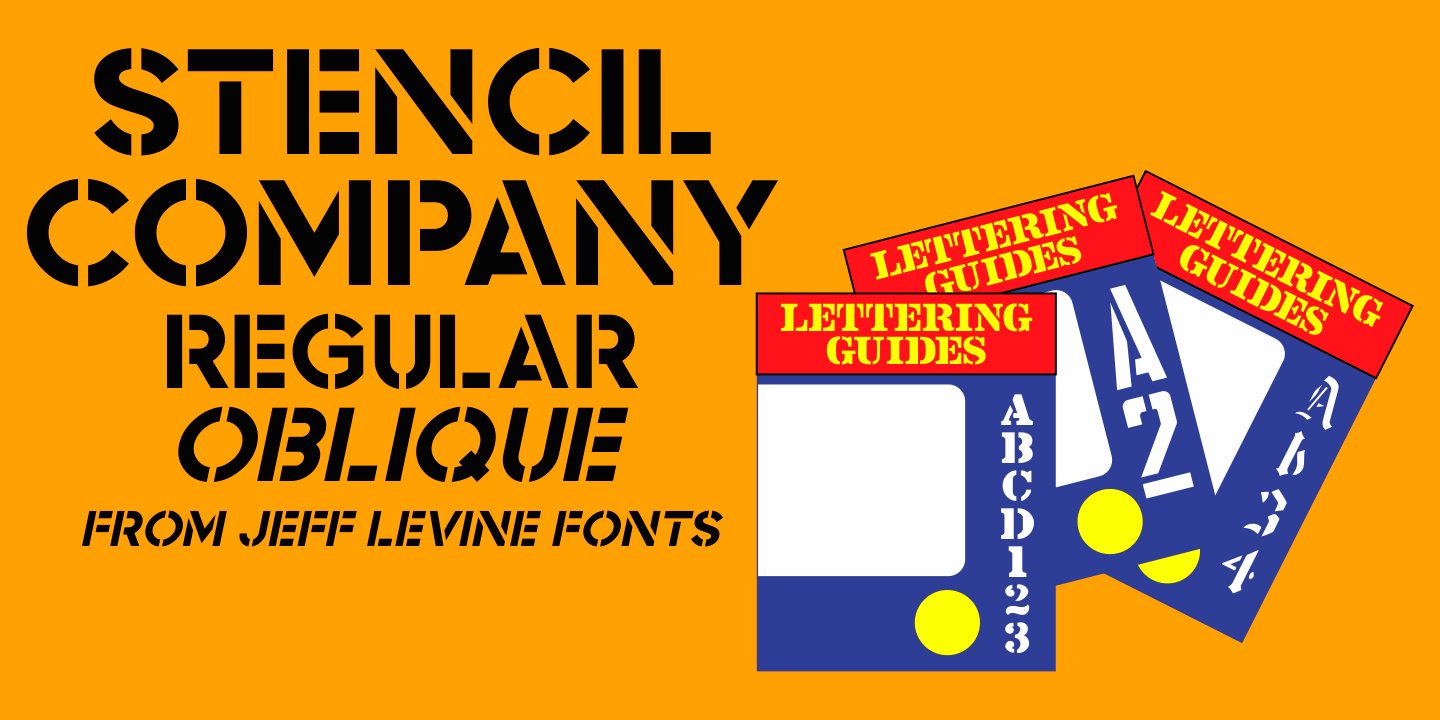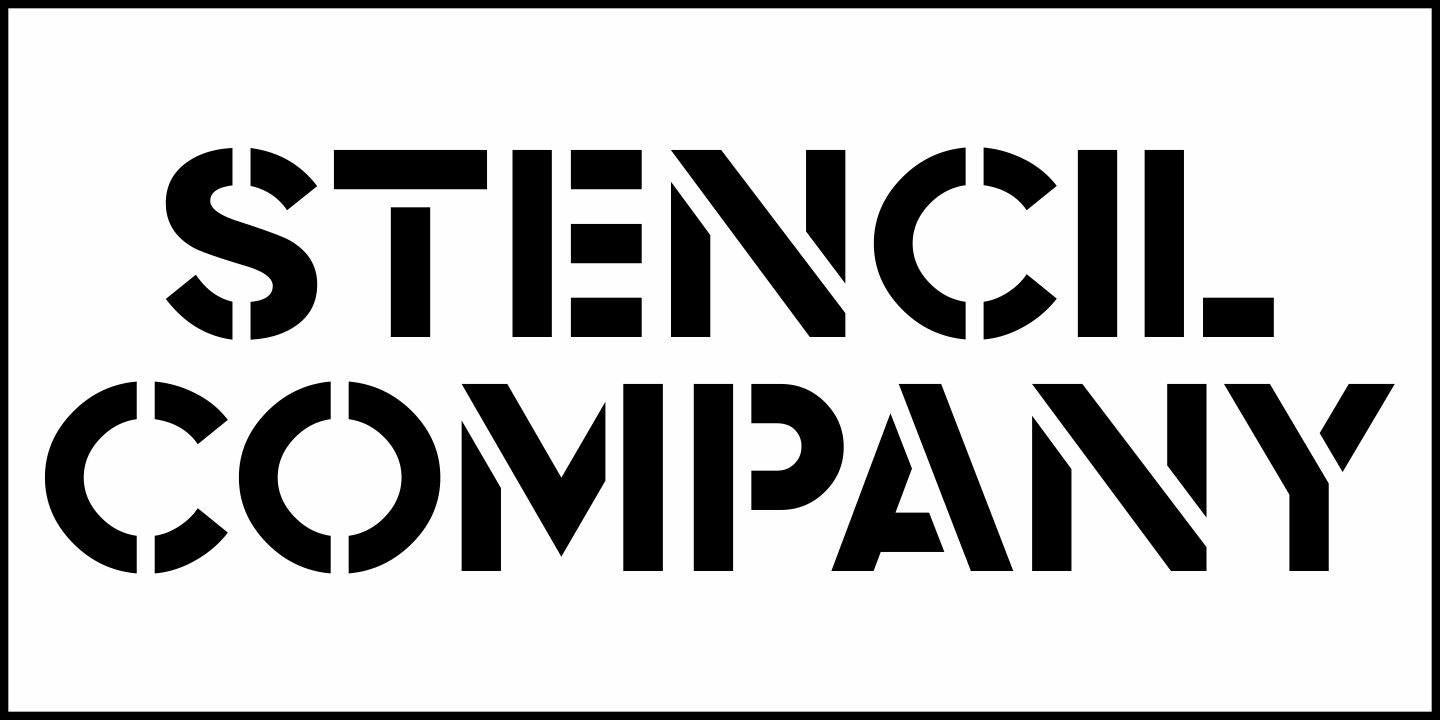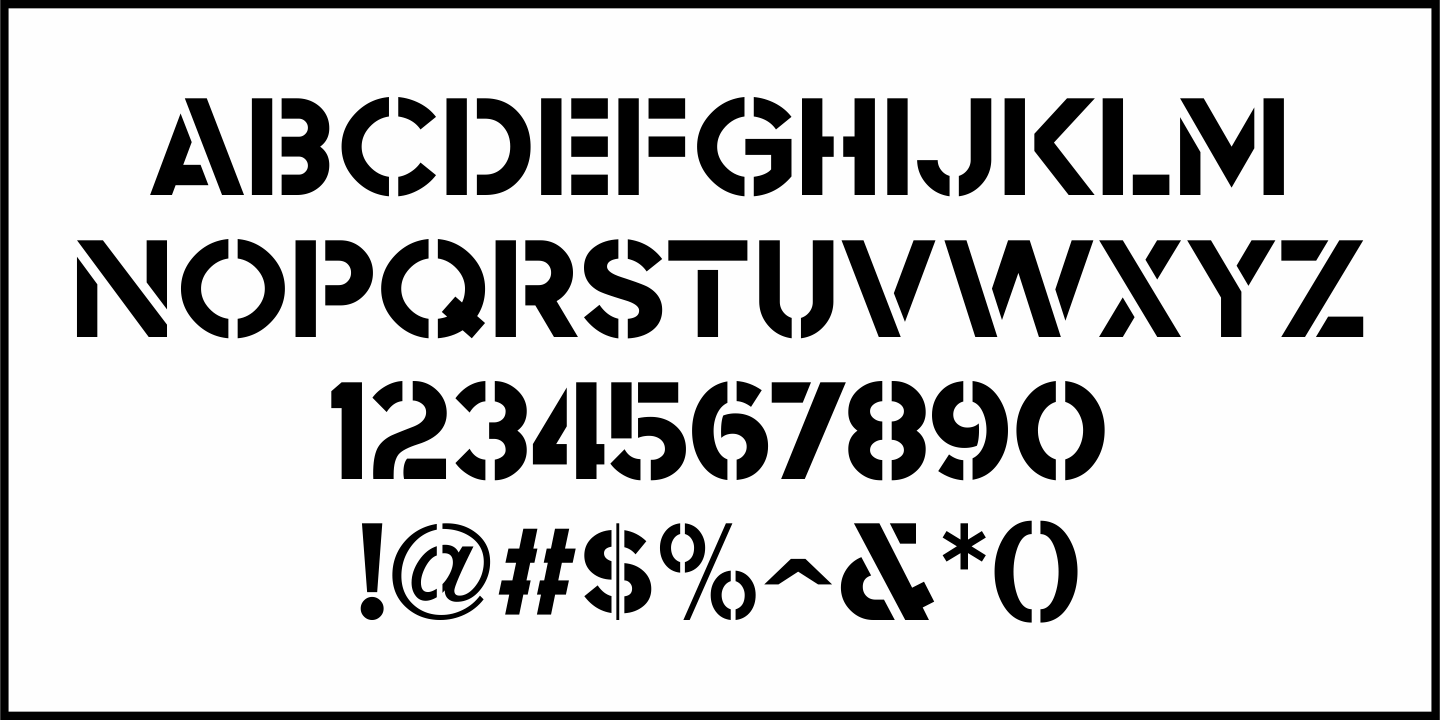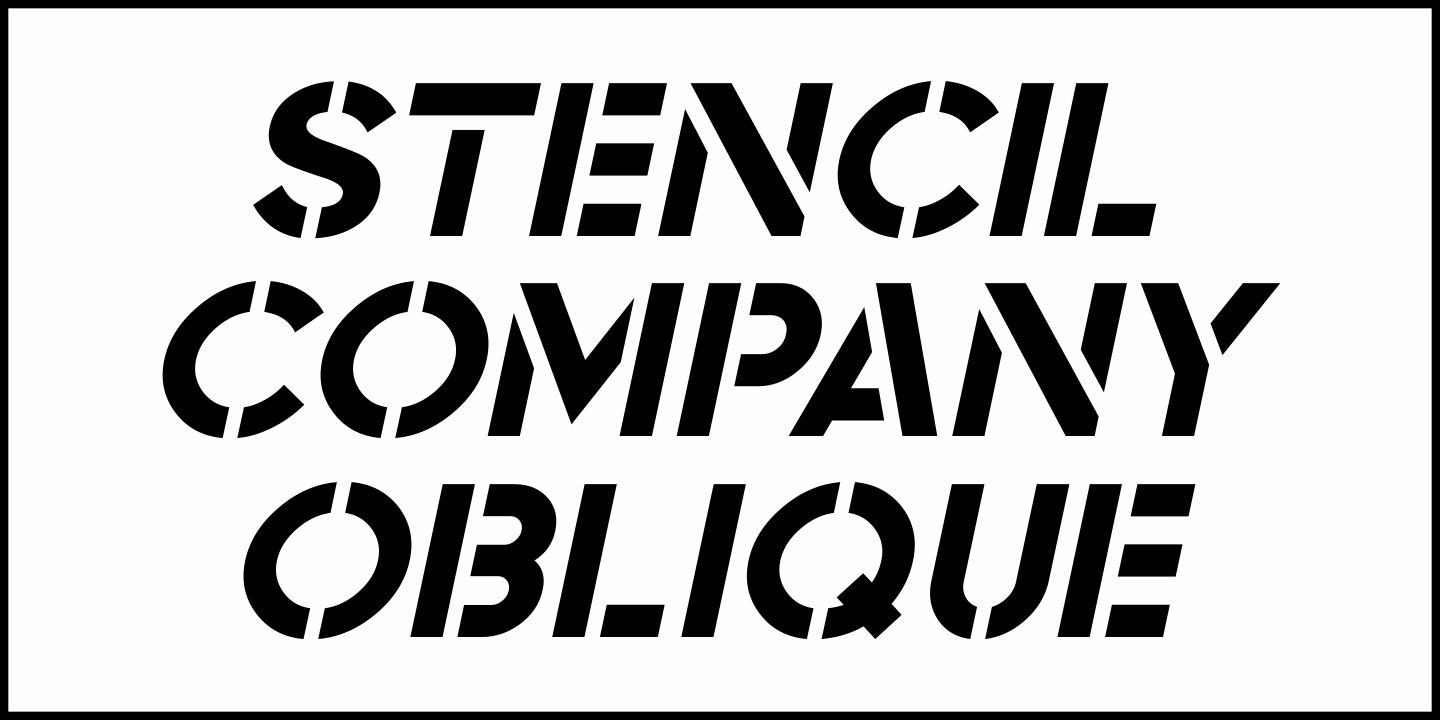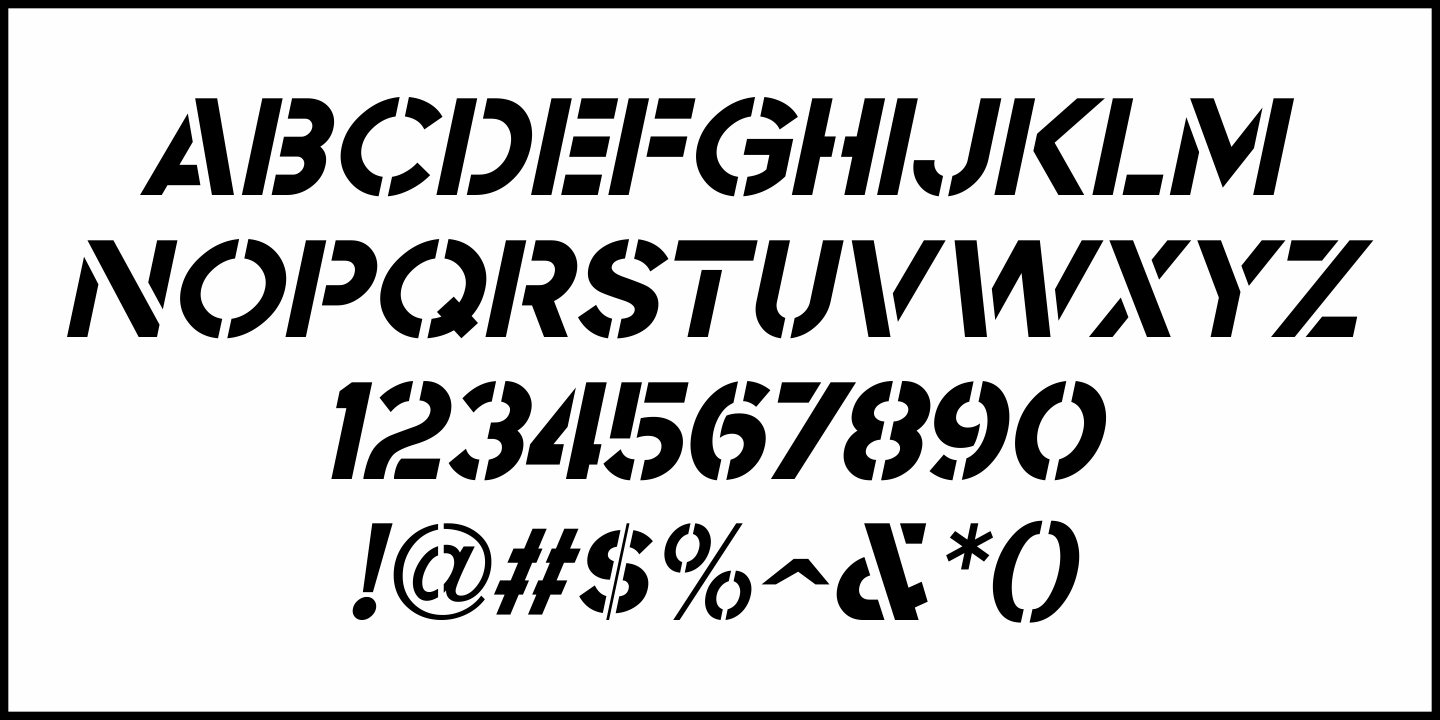
Stencil Company
A mid-1950s hand lettered ad for Stenso Lettering Guides provided the inspiration for Stencil Company JNL, now available in both regular and oblique versions.
The Stenso Lettering Company of Baltimore, Maryland pioneered easy-to-use and inexpensive lettering devices with guide holes for accurate spacing.
Originally designed by a school teacher (Ruth Libauer Hormats) around 1940, the company was family run until it was sold in 1962 to Ottenheimer Publishers. They in turn sold the line to the Dennison Manufacturing Company, and it was discontinued in the 1980s after Dennison merged with Avery.